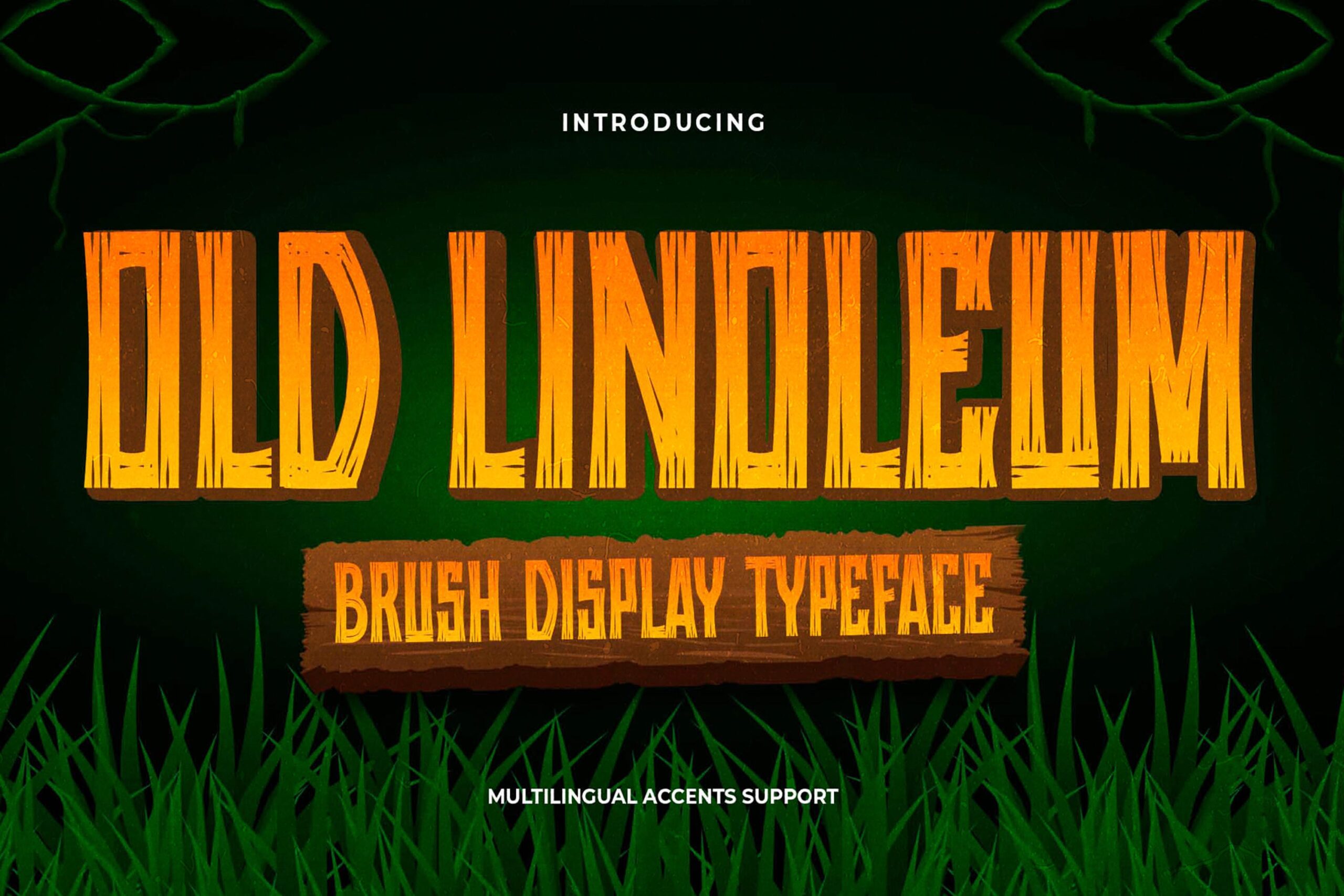
Old Linoleum – Brush Display Typeface, modern style and dramatic movement that is written casually and quickly.
The best for labels,poster,project , designs look modern, authentic and unique. It’s perfect for labels, quotes, posters, DIY projects, branding, packaging, greeting cards, websites, photography overlays, signs, scrapbooking, tags and so much more! That is why Old Linoleum has a textured, and unique characteristic more natural look.